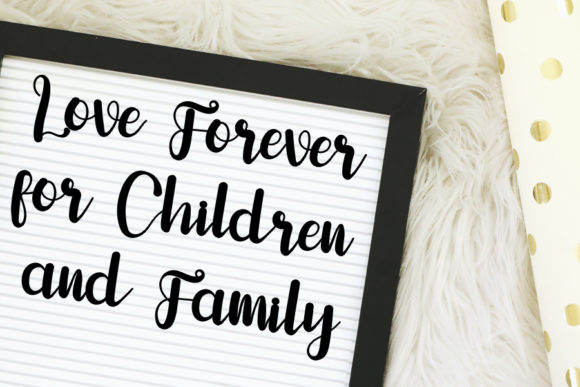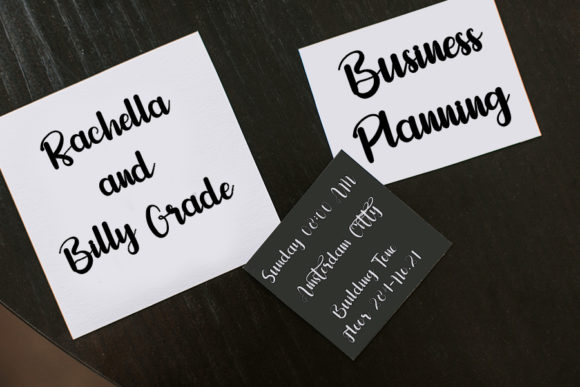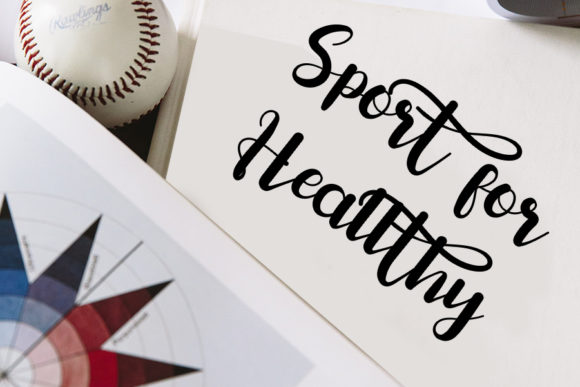
About Hello Mothers Font
Hello Mothers is a delicate and elegant calligraphy font. Its distinct and well rounded letters make this font a masterpiece. Every letter has a unique and beautiful touch, which will make your design come alive!